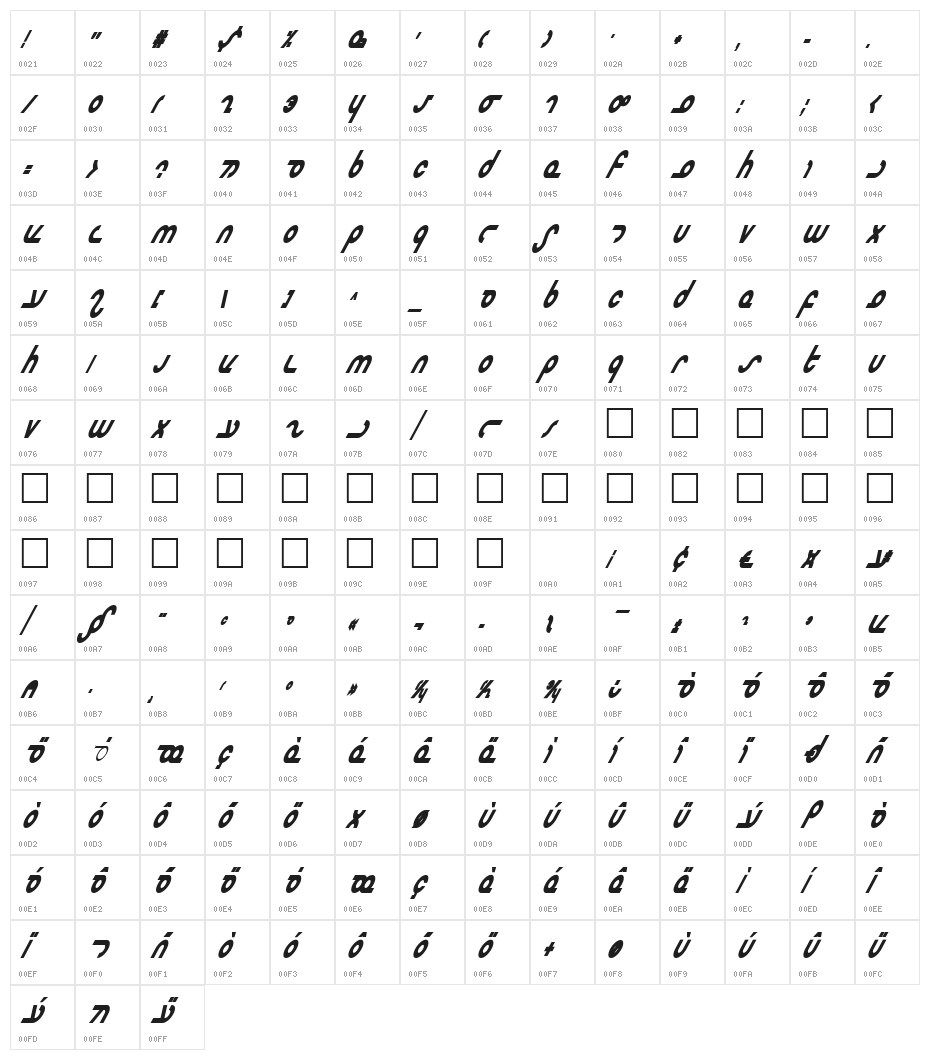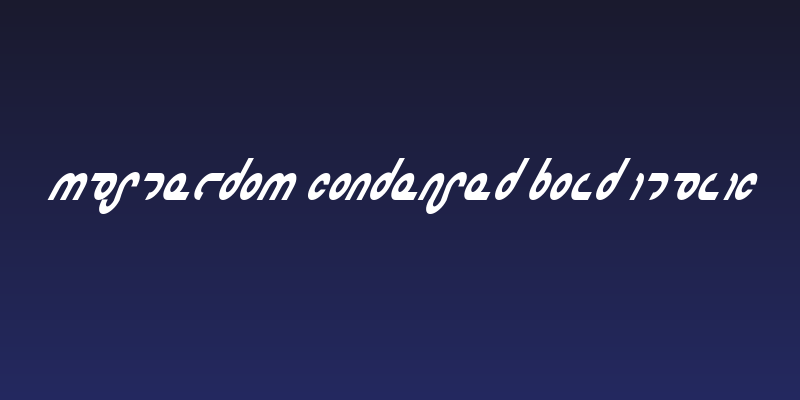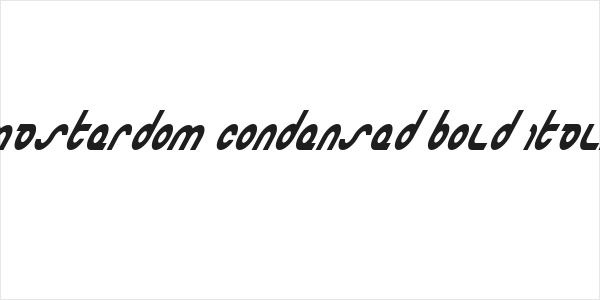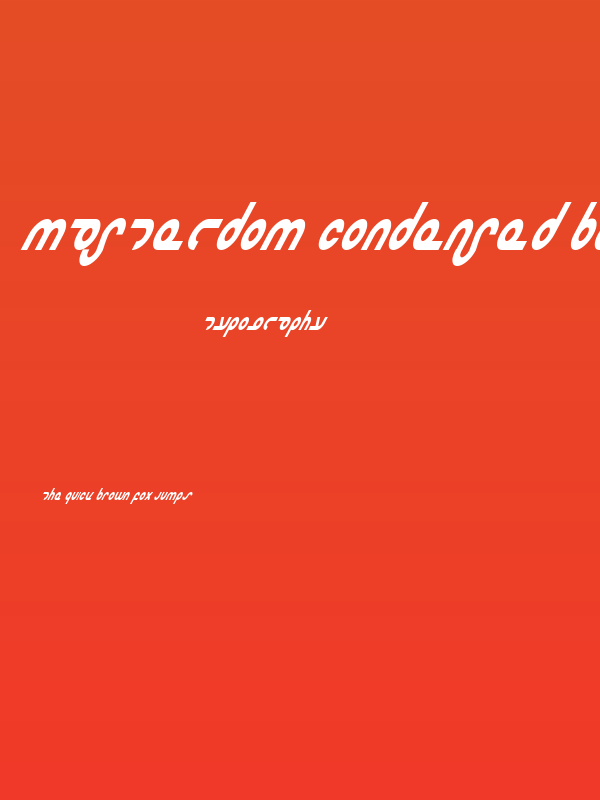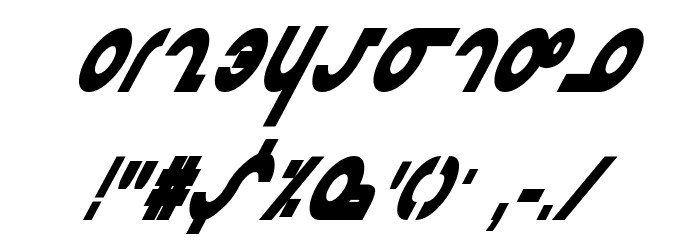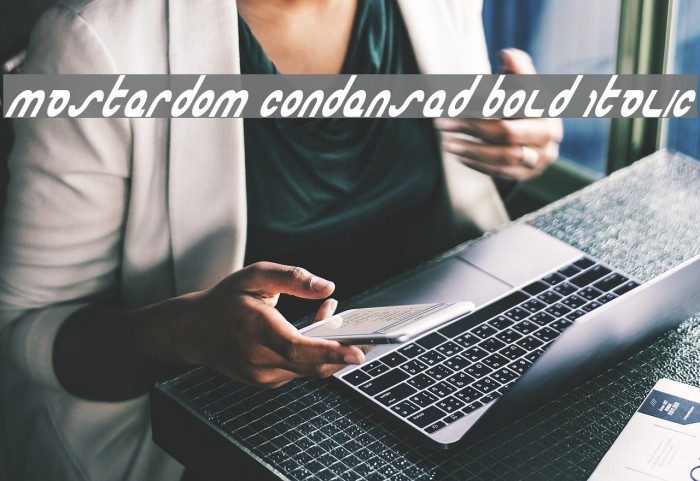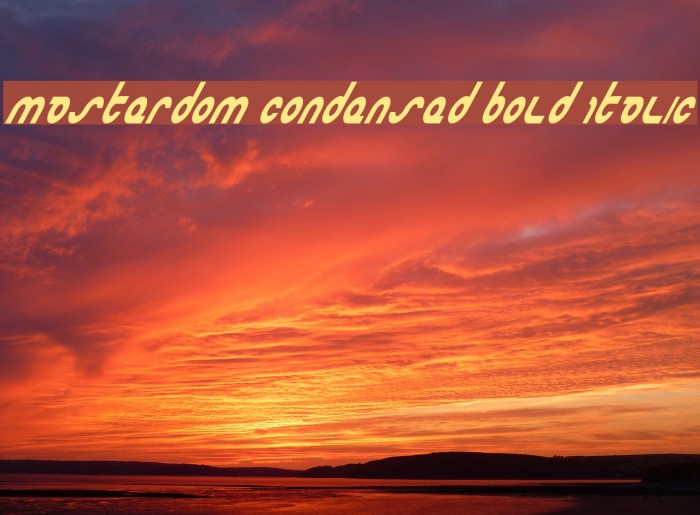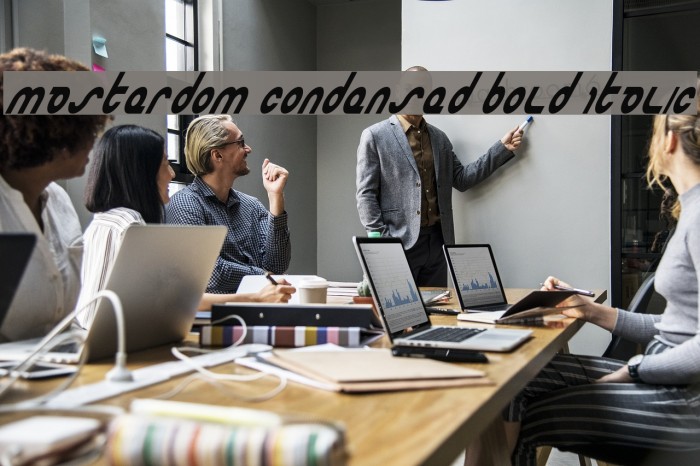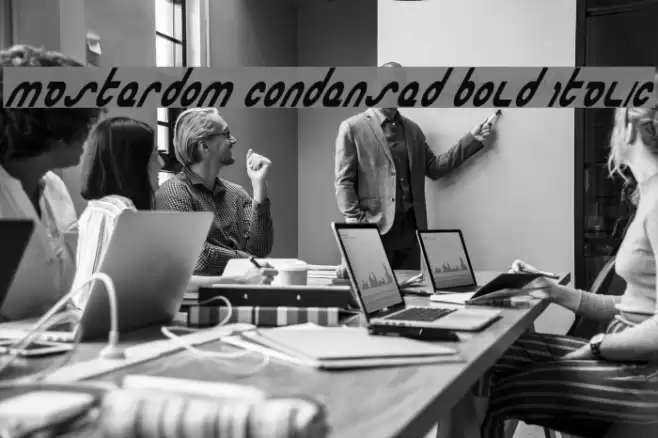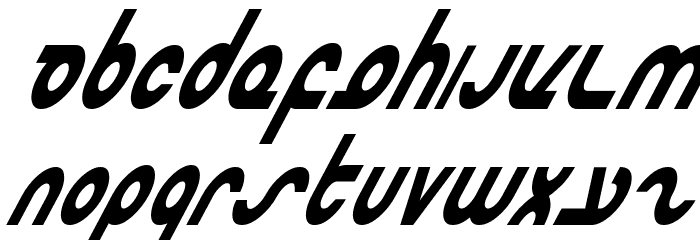
Masterdom Condensed Bold Italic Font
Masterdom Condensed Bold Italic Description
This font exhibits a bold and dynamic style with a condensed width, making it highly impactful. The italic slant adds a sense of motion and urgency, while the thick strokes provide a strong visual presence. The characters are tightly spaced, enhancing the compact and energetic feel. The design is modern and sleek, with a slightly futuristic touch, making it suitable for attention-grabbing headlines and logos. The high contrast in stroke thickness further emphasizes the boldness of the font, ensuring it stands out in any design context.
| Proposed Projects | Ideal for use in branding, advertising, posters, and any project requiring a strong, modern typeface. |